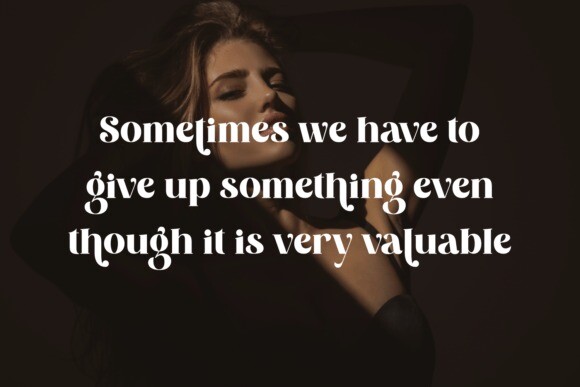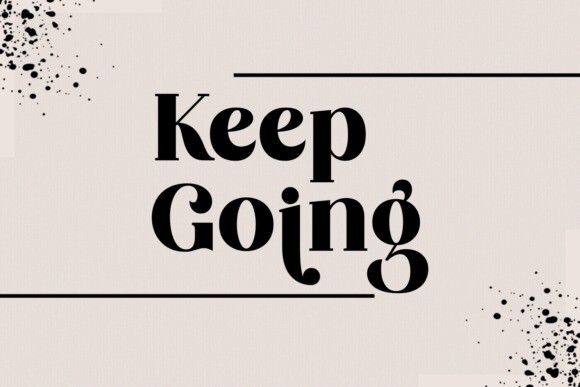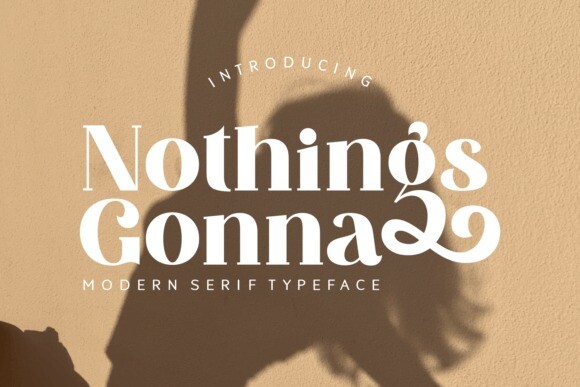
Nothings Gonna Font
Nothings Gonna Font is a modern and elegant serif font that effortlessly combines sophistication with contemporary style. Its clean lines and sleek design make it perfect for projects where a touch of refined class is desired. Whether you’re creating stylish headlines, invitations, or any text that demands a polished look, Nothings Gonna brings a timeless appeal to your typography. Elevate your design with this chic serif font, where modernity meets elegance seamlessly.